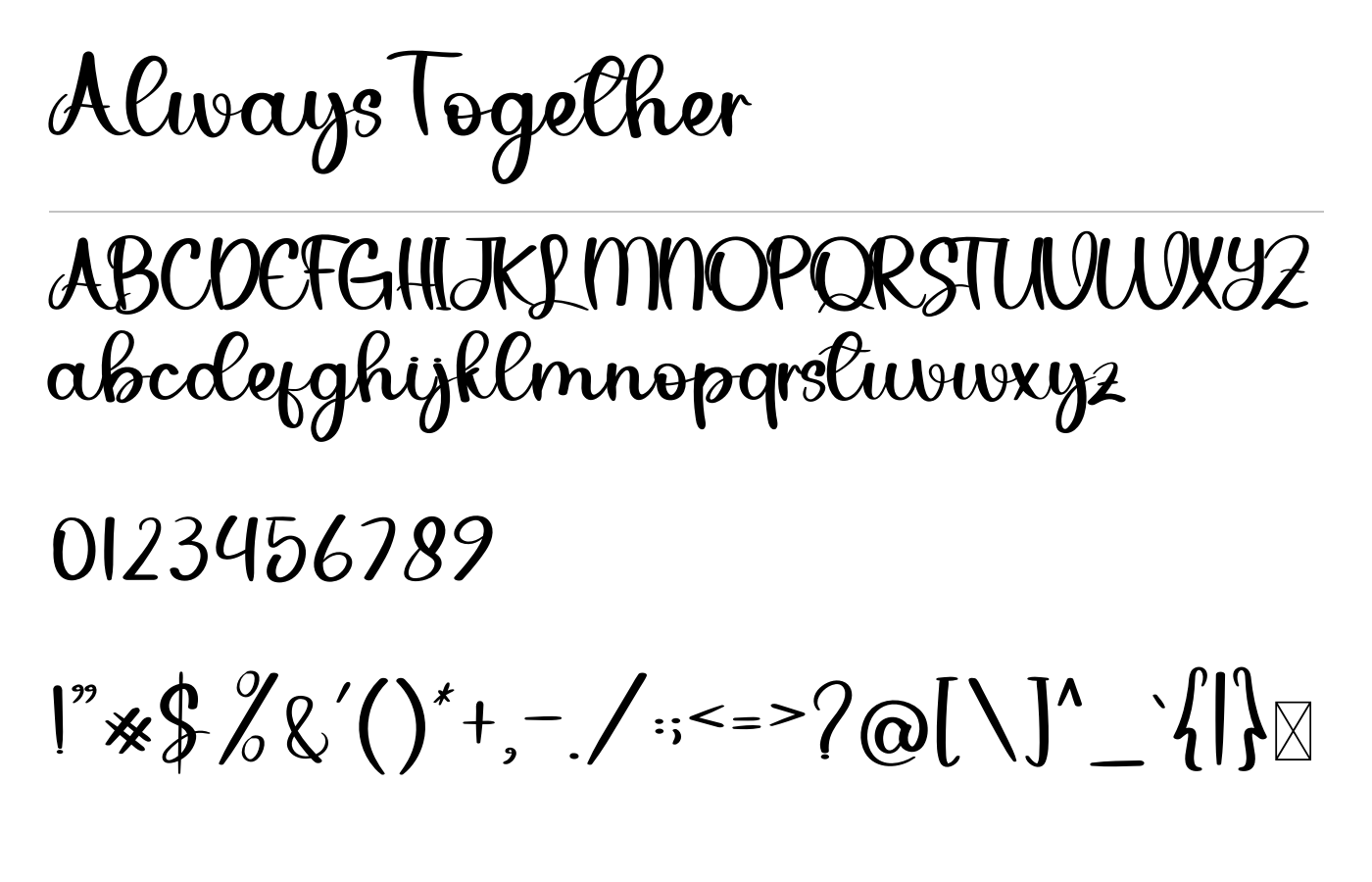
Always Together Font is a charming and playful script with smooth, rounded strokes that give it a friendly and approachable feel. Its well-balanced weight and moderate contrast create an inviting, handwritten look, making it perfect for personal branding, wedding invitations, and casual yet elegant designs. This font shines in projects where warmth and personality are key, offering a versatile style that works well in both headlines and decorative text.
Always Together Font
About Always Together Font